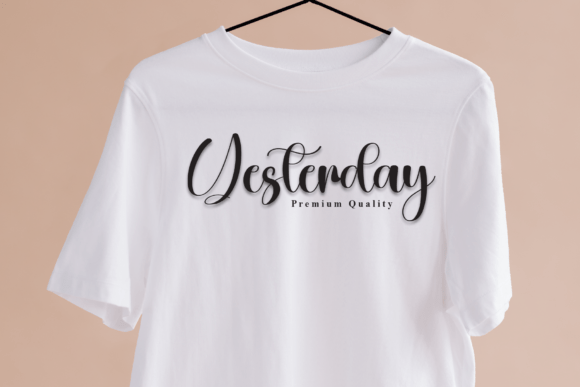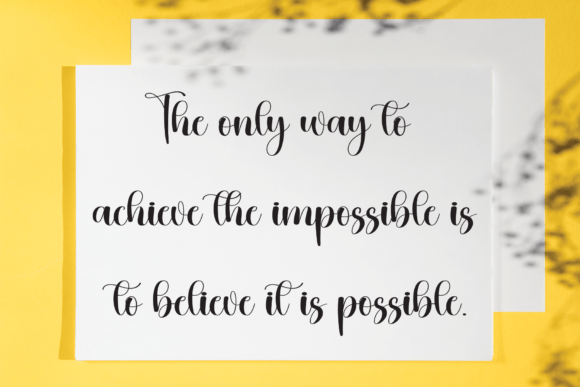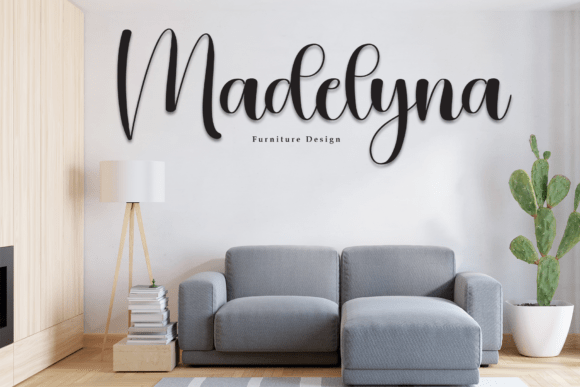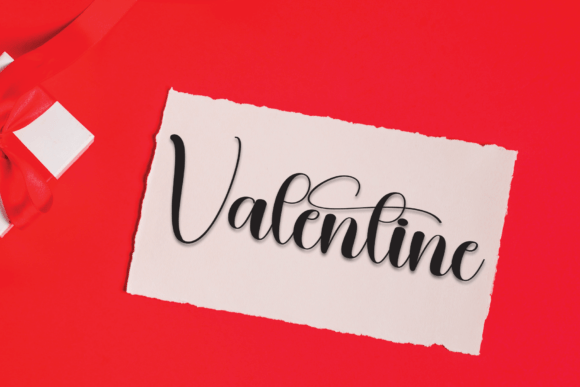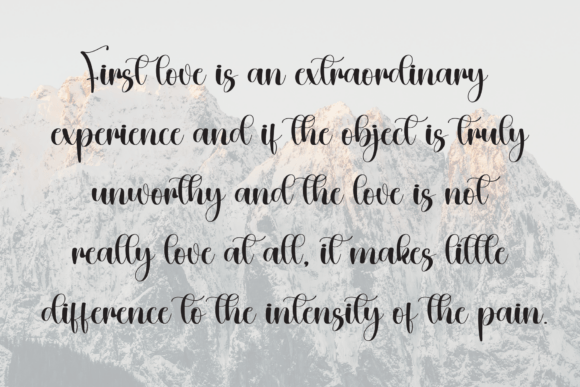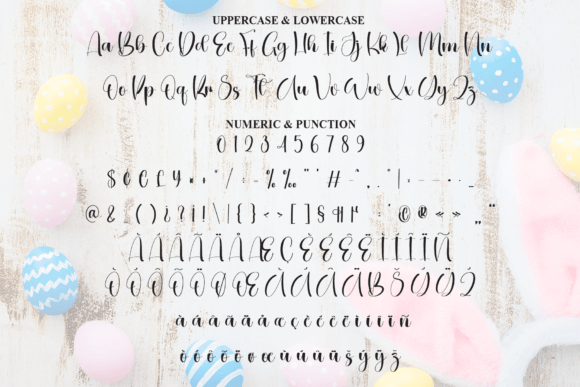
Easter Font: Elevate Your Designs with Elegance and Fluidity
Easter is a stunning handwritten script font that embodies the perfect blend of sophistication and charm. Its smooth, flowing strokes create a natural and refined feel, making it an ideal choice for designers and crafters looking to add a touch of elegance to their projects. Whether you’re working on branding, invitations, or creative endeavors, Easter Font is sure to make a lasting impression.
The Characteristics of Easter Font
Easter Font boasts a range of characteristics that set it apart from other typefaces. Its key features include:
- Smooth, flowing strokes: Easter Font’s fluid strokes create a sense of movement and elegance, making it perfect for designs that require a touch of sophistication.
- Natural and sophisticated feel: The font’s smooth strokes and balanced letterforms create a natural and refined feel that’s perfect for a wide range of design applications.
- Graceful balance of charm and modernity: Easter Font strikes the perfect balance between charm and modernity, making it an excellent choice for designers looking to add a personal touch to their work.
- Perfect for branding, invitations, and creative projects: Easter Font’s versatility makes it an excellent choice for a wide range of design applications, from branding and invitations to creative projects and more.
Why Choose Easter Font?
With so many typefaces to choose from, why should you choose Easter Font for your next design project? Here are just a few reasons why Easter Font stands out from the crowd:
- Elegance and sophistication: Easter Font’s smooth, flowing strokes and balanced letterforms create a sense of elegance and sophistication that’s hard to find in other typefaces.
- Versatility: Easter Font is perfect for a wide range of design applications, from formal invitations to creative projects and branding.
- Easy to read: Despite its elegant and refined feel, Easter Font is surprisingly easy to read, making it perfect for designs that require a clear and concise message.
- Unique and eye-catching: Easter Font’s unique blend of charm and modernity makes it an eye-catching addition to any design, ensuring that your work will stand out from the crowd.
- Pair it with other fonts: Easter Font pairs perfectly with a range of other fonts, from sans-serif to serif, to create visually interesting and dynamic designs.
In conclusion, Easter Font is a stylish and elegant handwritten script font that’s perfect for designers and crafters looking to add a touch of sophistication to their work. With its smooth, flowing strokes and balanced letterforms, Easter Font is sure to make a lasting impression in a wide range of design applications. Whether you’re working on branding, invitations, or creative projects, Easter Font is an excellent choice for anyone looking to elevate their designs with elegance and fluidity.